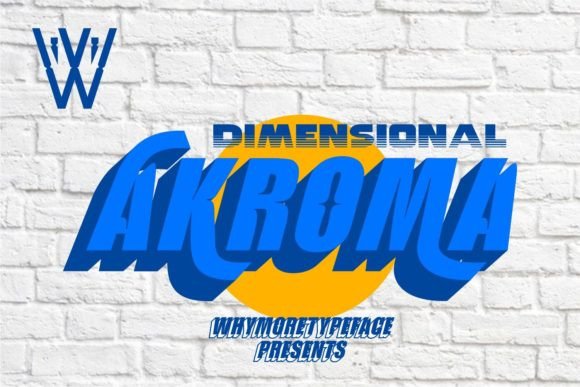
Behold, design enthusiasts and marketing mavericks, Akroma Font is a display font masterpiece that will ignite your creativity and elevate your designs to new heights. Inspired by the vibrant energy of athleticism and infused with a touch of retro charm, Akroma embodies the essence of the 80s with its bold lines and playful curves.
With its captivating and unique design, Akroma is not just a font; it's an expression of your boldness and individuality. It's a font that breaks free from the ordinary and captivates your audience with its dynamic presence. Whether you're crafting logos, creating eye-catching headlines, or designing powerful social media graphics, Akroma is the perfect font to make your designs shine.
Step into the world of Akroma, where creativity takes center stage. Let your imagination soar as you explore the endless possibilities this font offers. Its versatility knows no bounds – it's equally at home in sports-themed designs, retro-inspired projects, and modern aesthetics.
Unlock the power of Akroma and unleash your design potential. It's time to leave a lasting impression and make your designs truly remarkable. Don't settle for ordinary fonts – embrace the extraordinary with Akroma Font today!